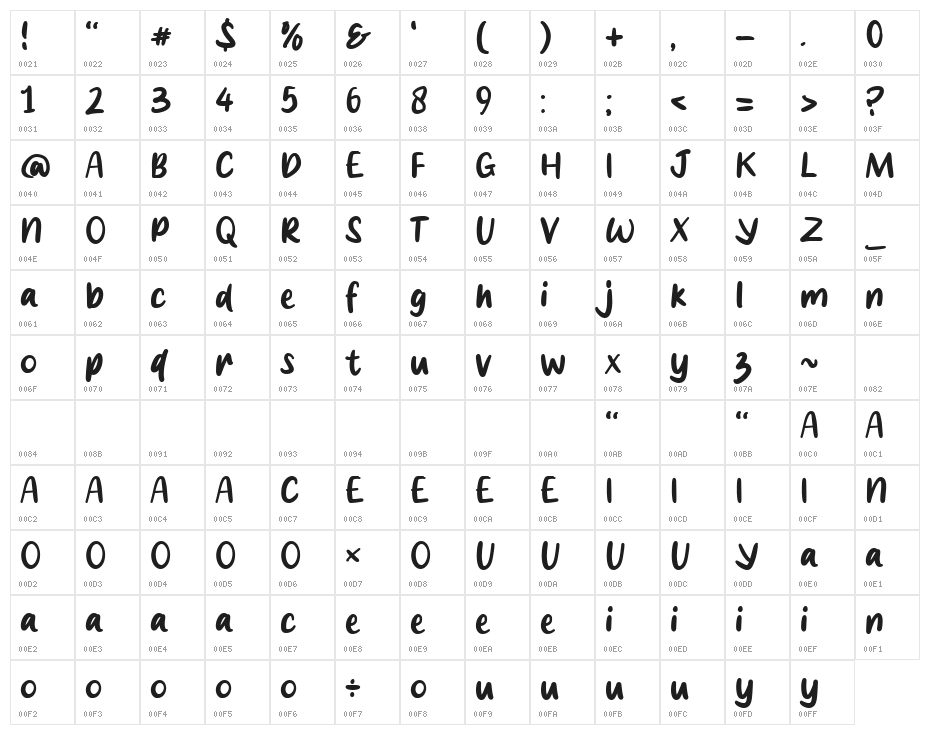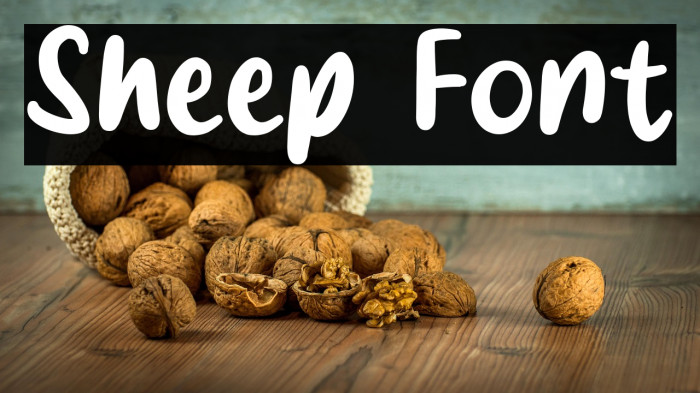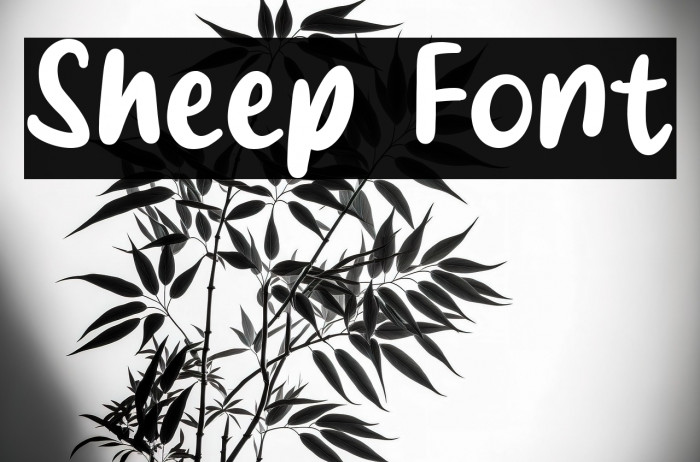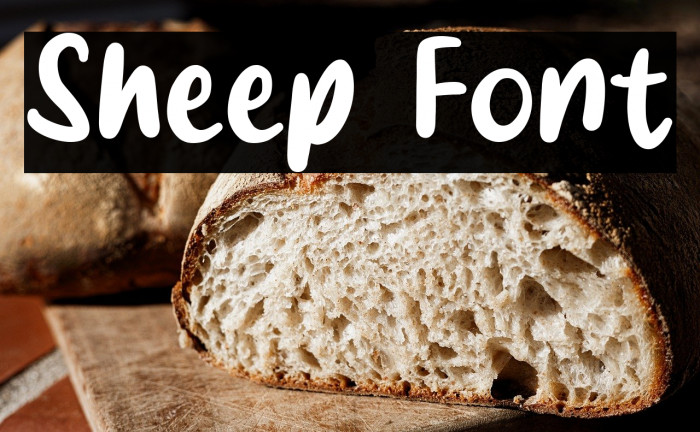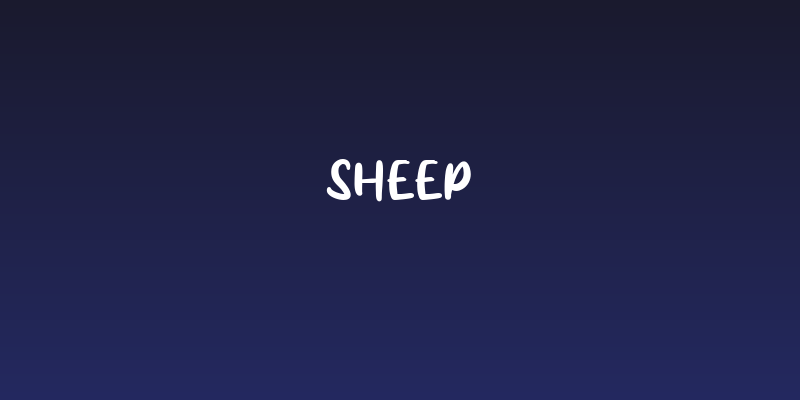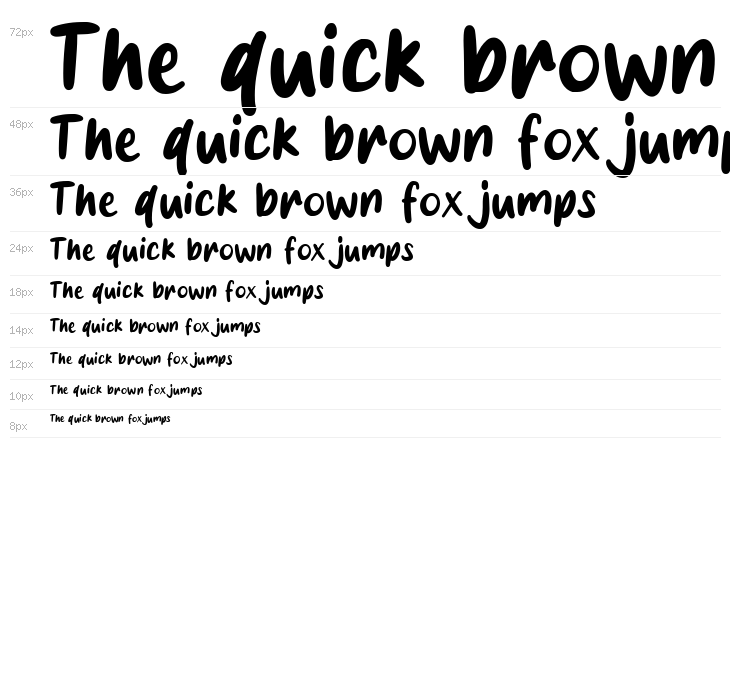
Sheep Font
Sheep Description
This font features a playful and bold handwritten style, characterized by its rounded and smooth letterforms. The strokes are thick and consistent, giving it a friendly and approachable appearance. The uppercase and lowercase letters maintain a cohesive look, while the numerals and special characters complement the overall design. The font's informal style makes it suitable for creative and casual applications, where a touch of personality is desired. Its legibility is maintained despite the playful curves, making it versatile for various uses.
| Proposed Projects | Ideal for children's books, greeting cards, playful branding, and social media graphics. |